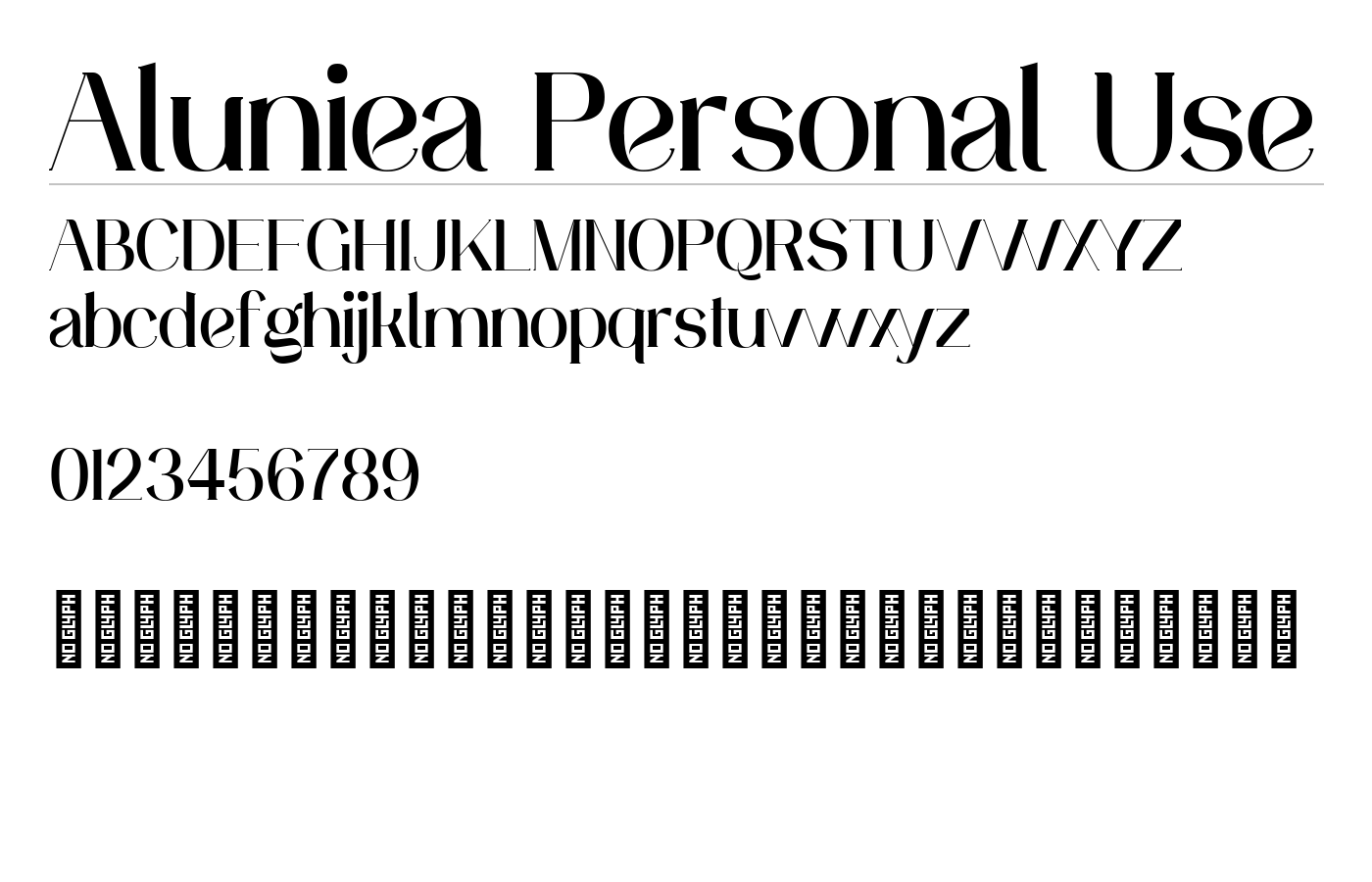
Aluniea Personal Use is a distinctive serif font with a modern twist, featuring high contrast between its thick and thin strokes and elegant, slender letterforms. Its refined style and unique details, like the unusual curves and sharp terminals, give it a sophisticated and artistic feel, making it perfect for luxury branding, editorial headlines, and fashion design projects seeking a chic and contemporary look.
Aluniea Personal Use Font
About Aluniea Personal Use Font